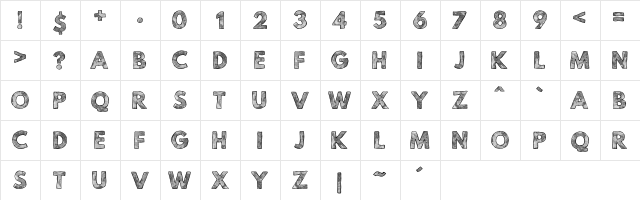
Mild Life Textured Personal Use Textured
Design Context for Mild Life Textured Personal Use Typeface
Mild Life Textured Personal Use embraces imperfection — its rough, textured character adds raw authenticity to designs that want to feel lived-in and unconventional.
Suited to punk-influenced zines, underground music branding, streetwear, and raw, anti-corporate design.
Pro Tip: Pair Mild Life Textured Personal Use with intentionally raw or lo-fi design elements. Fighting against it with overly polished surroundings will undermine its personality.